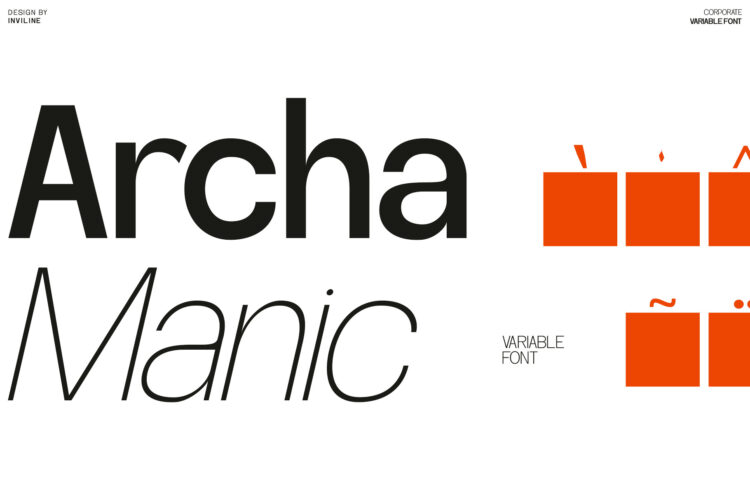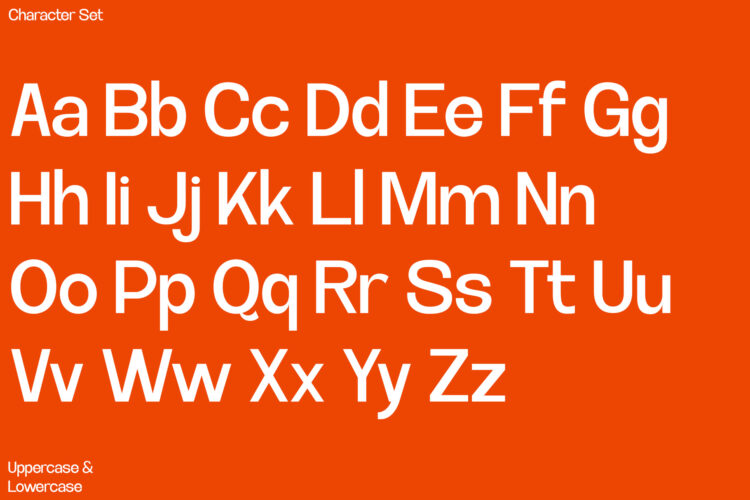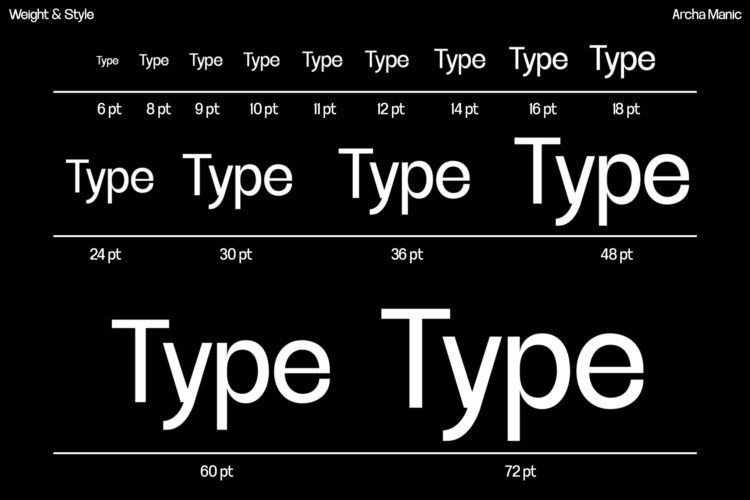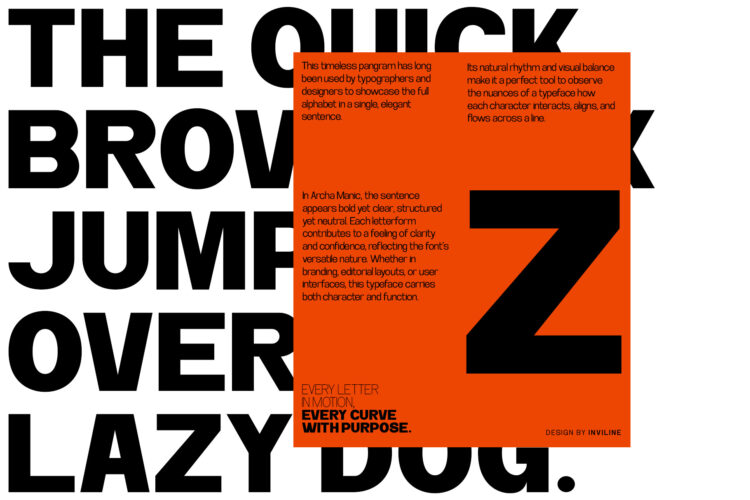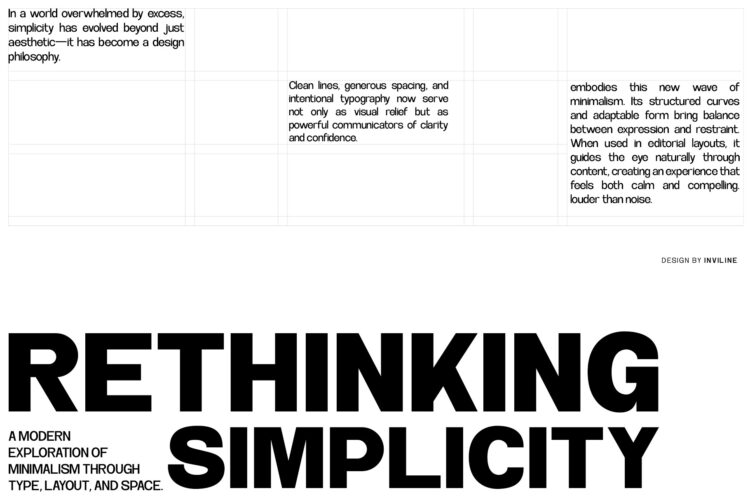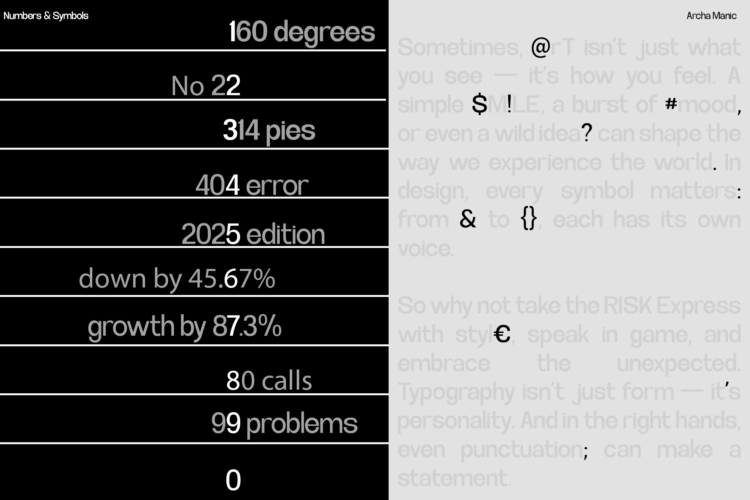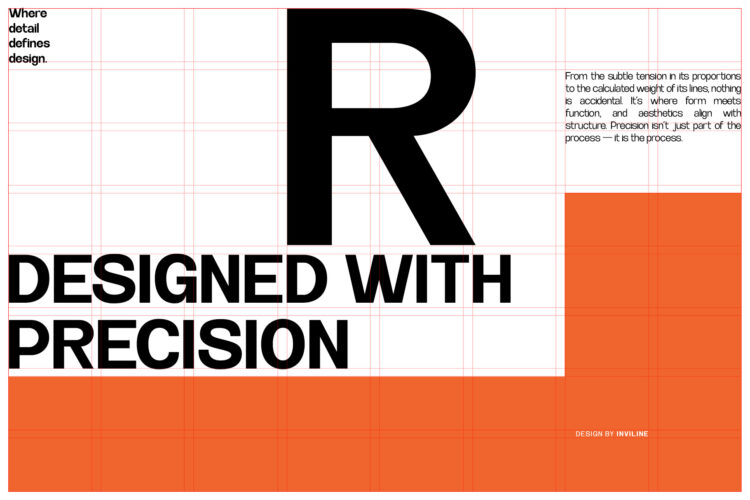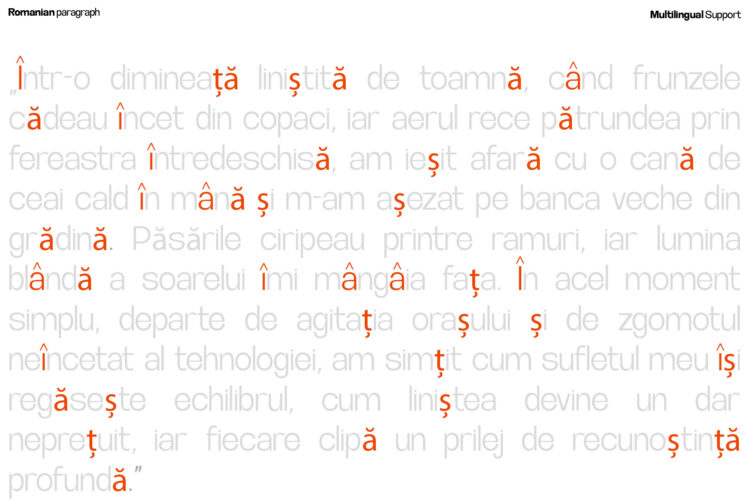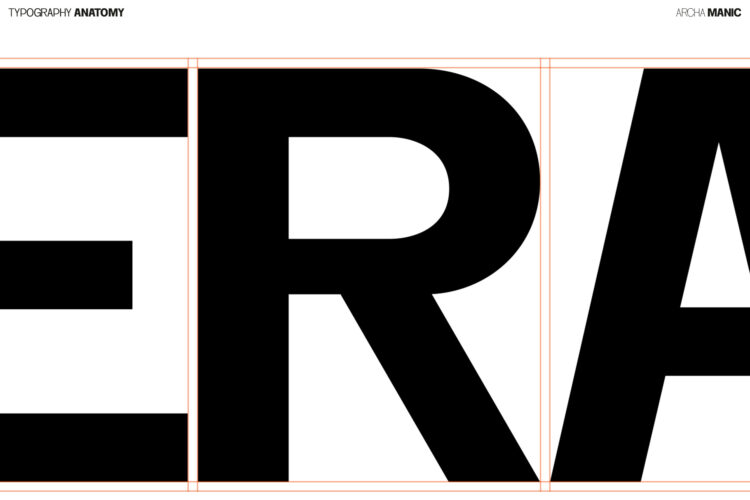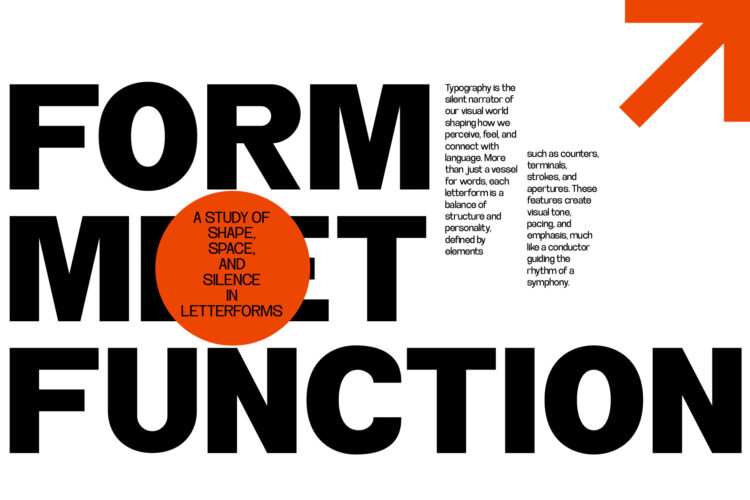
Archa Manic – Variable Sans Font
Archa Manic is a modern corporate-style variable sans serif designed for clarity, versatility, and expression. With a smooth geometric construction and subtle quirks on its terminals, Archa Manic bridges the gap between modern functionality and distinctive personality.
It comes with 9 static weights and a fully functional variable font, making it perfect for both display headlines and micro body text. The bold characters maintain a confident presence, while the lighter weights carry elegance and neutrality.
From minimalist branding to expressive editorial layouts, Archa Manic adapts gracefully across contexts—just tweak the weight slider and watch it transform.
• 9 Styles: Thin, Extra Light, Light, Regular, Medium, Semi Bold, Bold, Extra Bold, Black
• Variable font support (Weight axis 100–900)
• Multilingual support
• Complete symbols & punctuation
• Numbers & math symbols
• Clean kerning & spacing
Perfect For :
• Corporate & Tech Branding
• Editorial & Magazine Headlines
• Mobile & Web UI Typography
• Startup Pitch Decks
• Modern Logos
• Posters & Billboards
• Product Packaging
• App Interface Text
• Clean Presentations
• Fashion Lookbooks